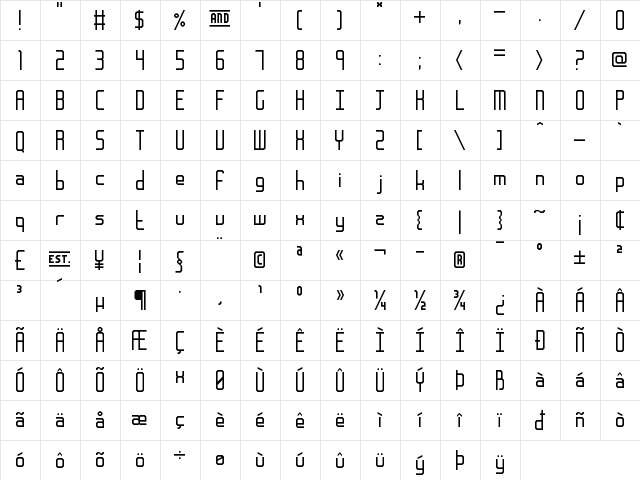
Frankfurt Messe Wide
Design Context for Frankfurt Messe Typeface
Frankfurt Messe is a composed and adaptable typeface that performs quietly and consistently across a wide range of design contexts.